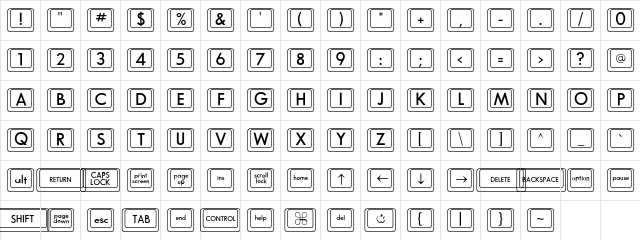
DavysKeyCaps Regular
Design Context for DavysKeyCaps
DavysKeyCaps is a composed and adaptable typeface that performs quietly and consistently across a wide range of design contexts.
Pro Tip: Use DavysKeyCaps in both headline and body roles to test its range before committing to a single application.